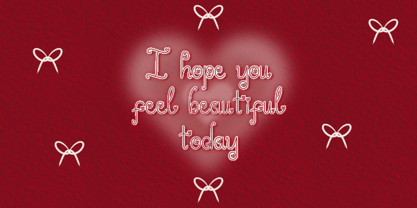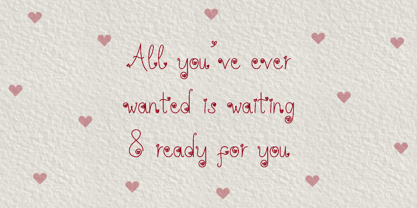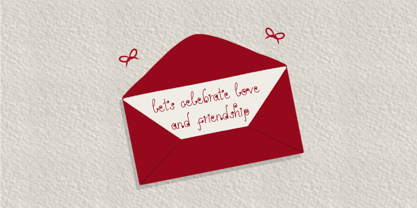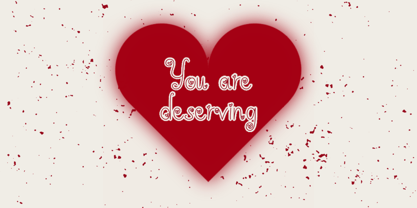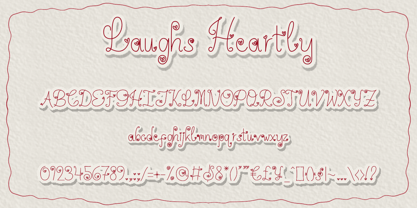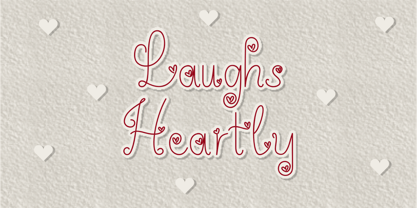
Laughs Heartly
Die Schriftfamilie Laughs Heartly wurde von Khair Unnas entworfen und von Khaiuns veröffentlicht. Laughs Heartly enthält 1 Stile.
Introducing Laughs Heartly – a whimsical and endearing handwritten font that brings a burst of joy and warmth to your creative projects. With its playful swirls and delicate heart accents, this font captures the charm of handwritten letters infused with a touch of love and fun. Perfect for crafting heartfelt messages, designing playful invitations, or adding a cheerful vibe to your branding, Laughs Heartly is here to make your designs stand out with its unique personality.
Laughs Heartly offers a delightful balance of creativity and functionality, making it suitable for a wide range of applications. Whether you're designing greeting cards, posters, or social media graphics, this font's quirky yet elegant style ensures your work leaves a lasting impression. Its carefully crafted details and joyful spirit make it a versatile choice for any designer looking to infuse their work with charm and originality.
• Laughs Heartly Regular
• 231+ total glyphs
• Standard English characters
• Accented characters
Designer: Khair Unnas